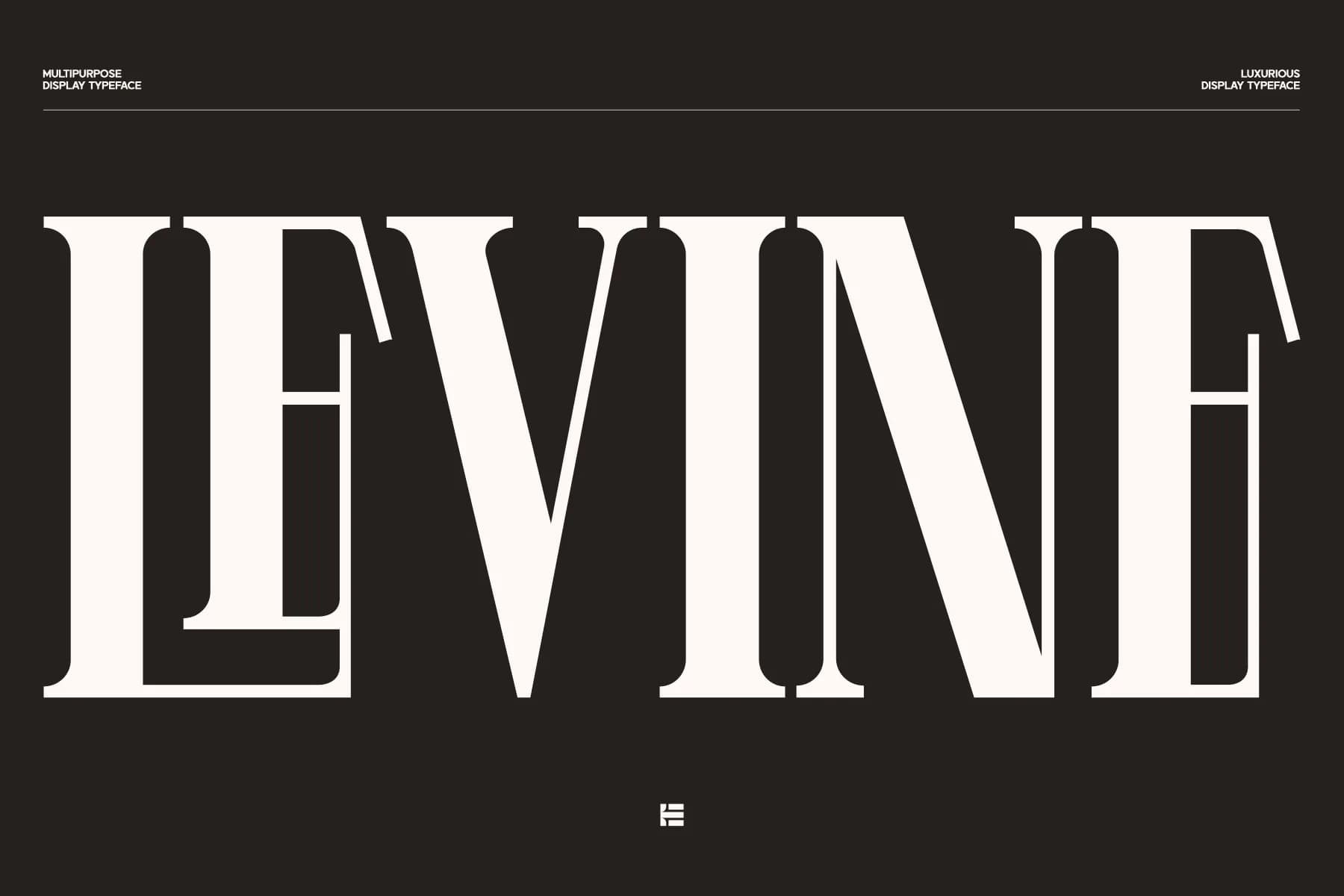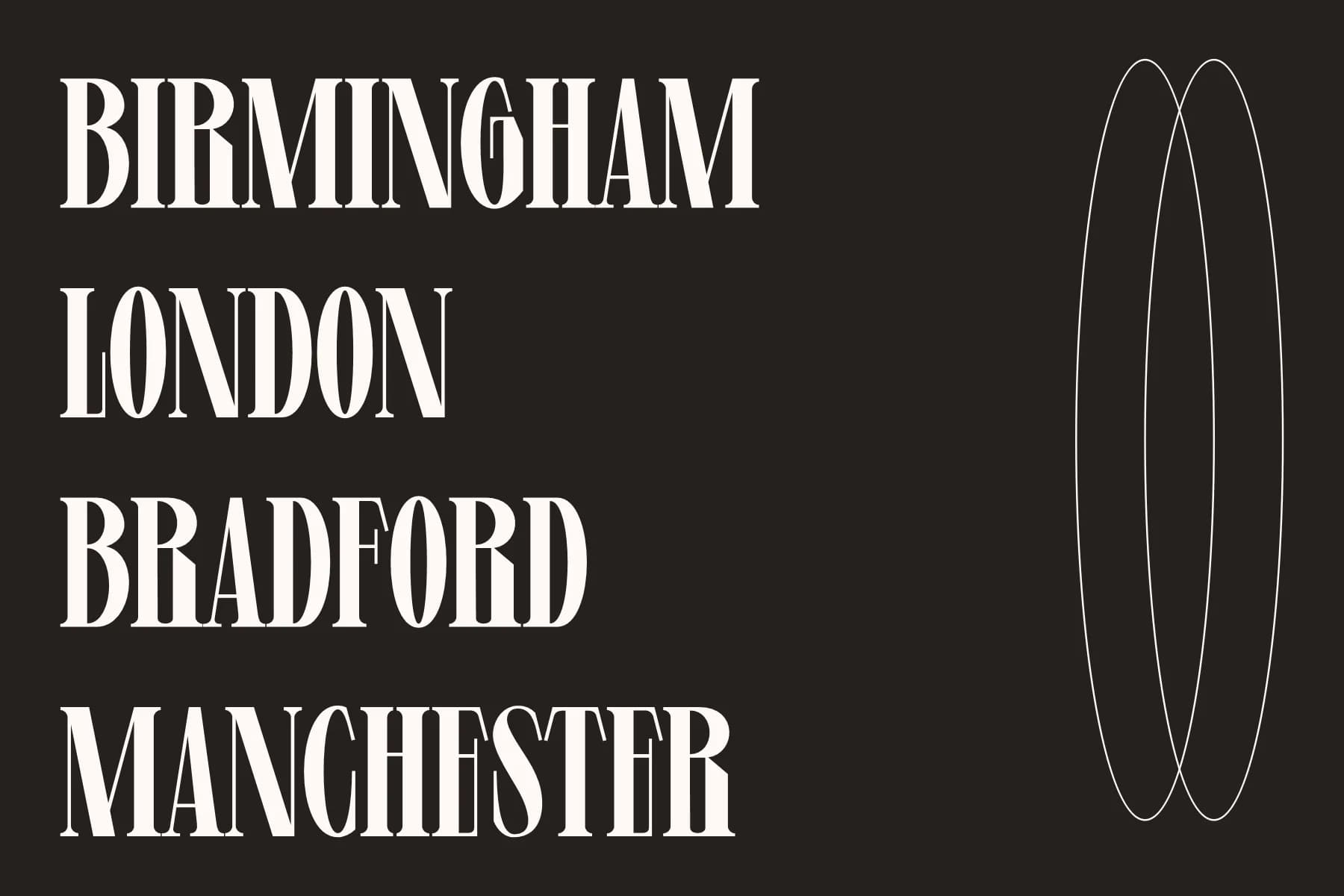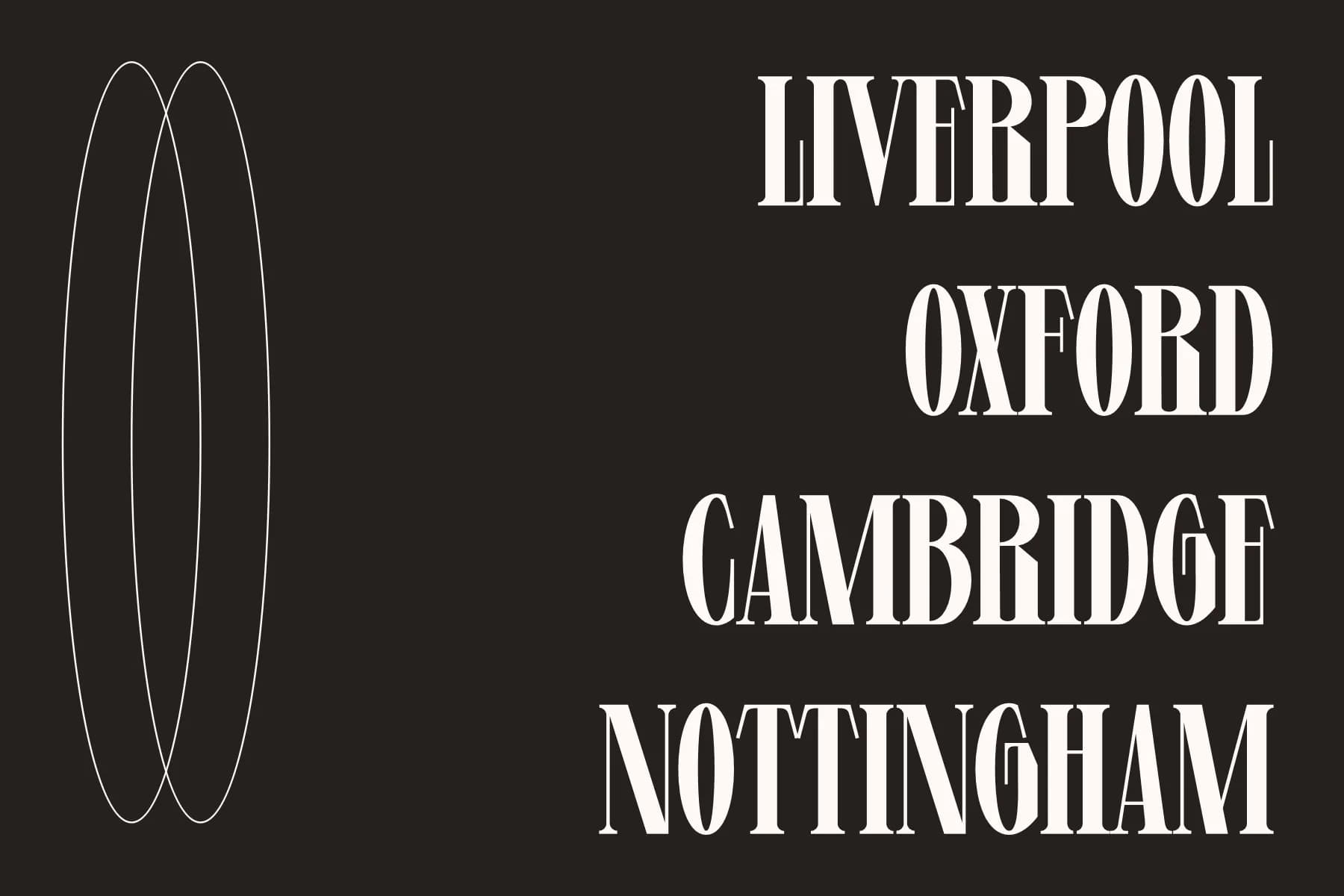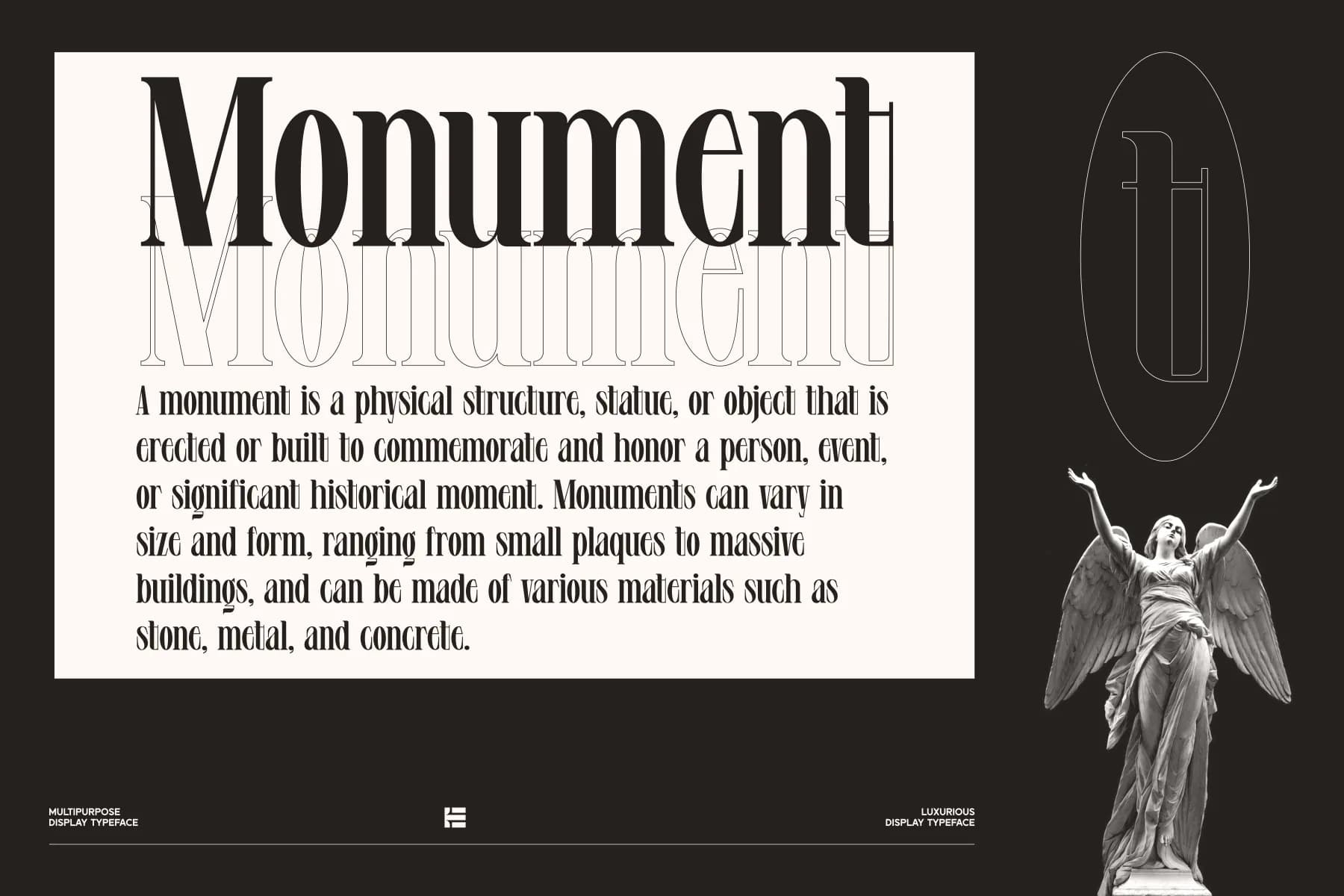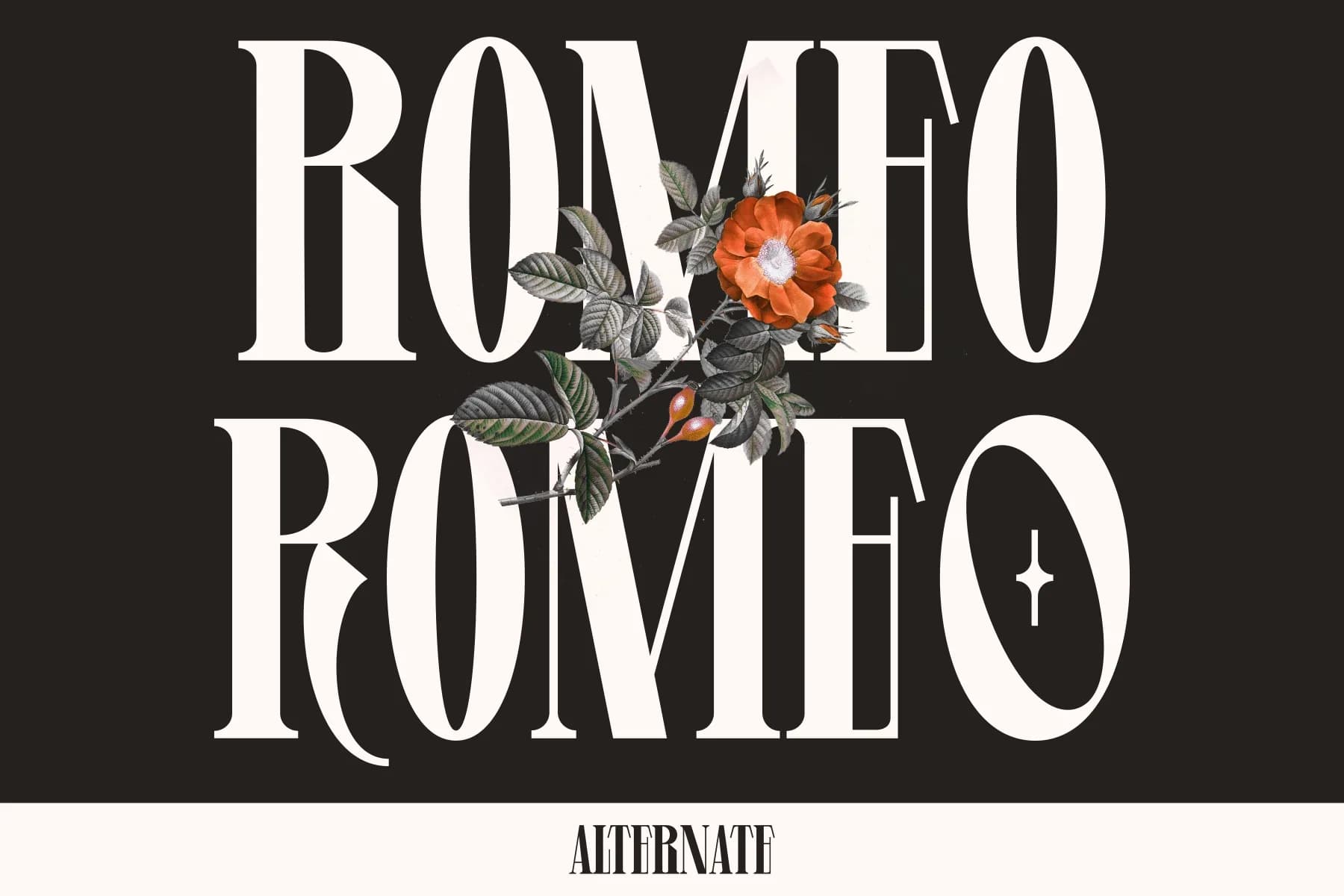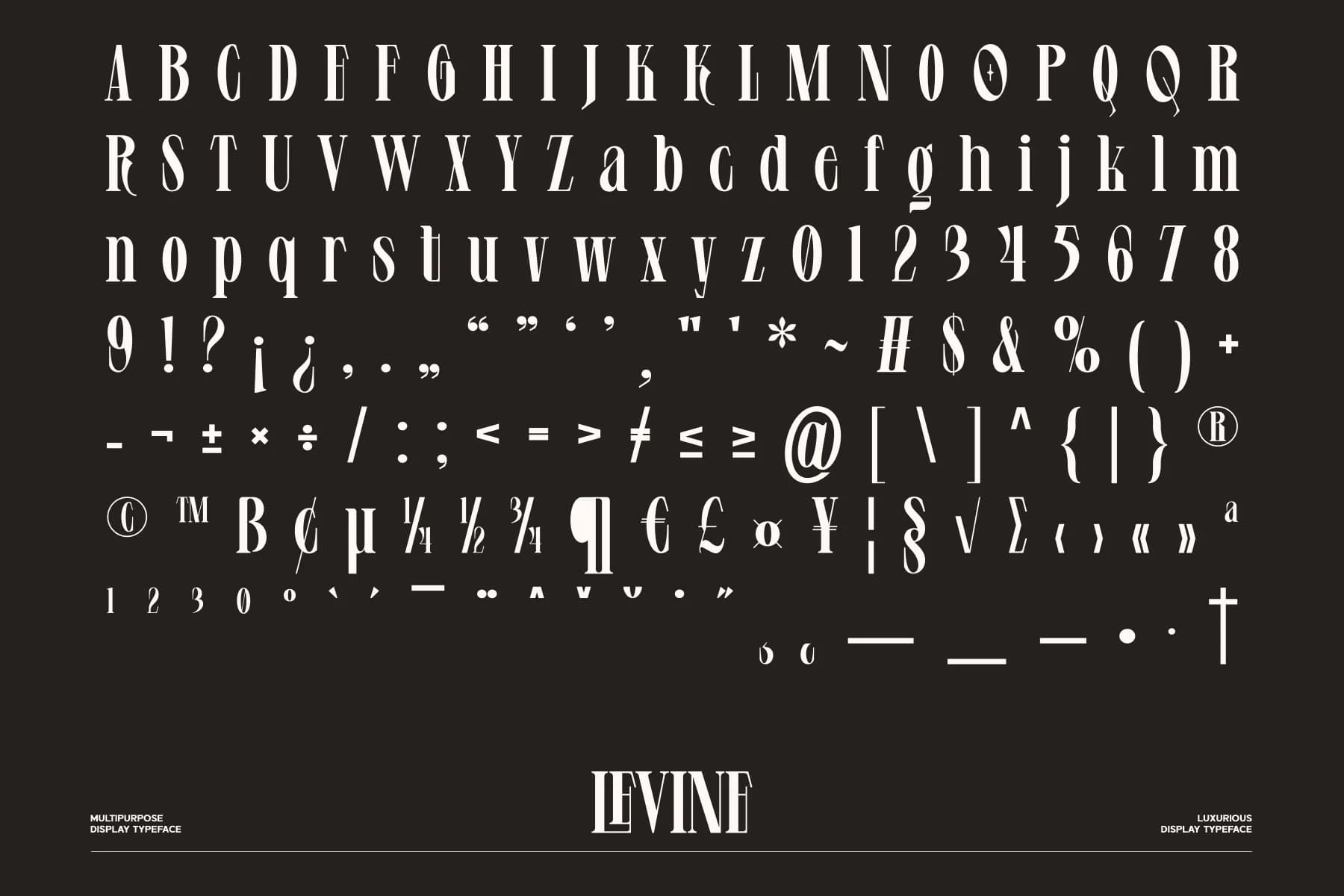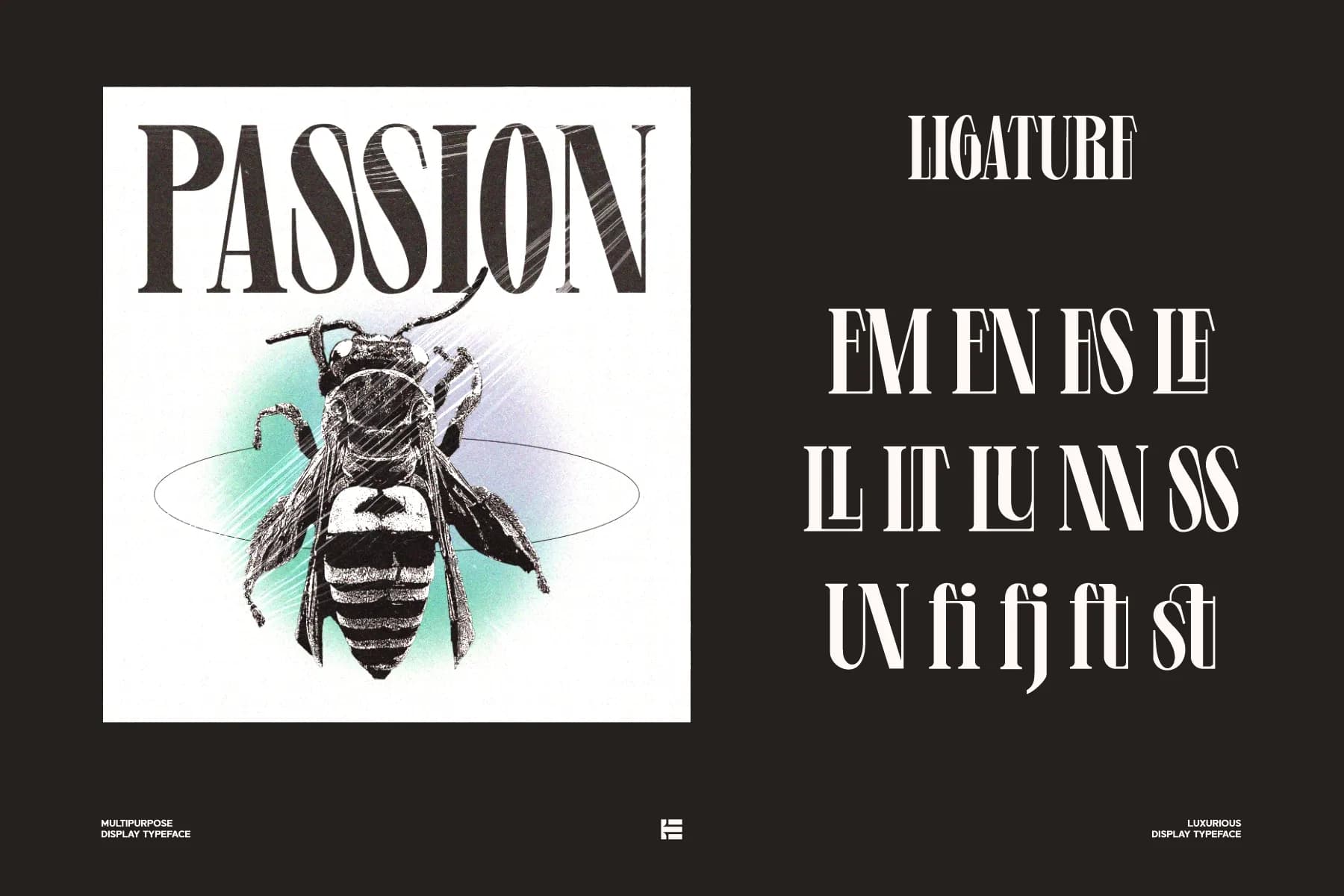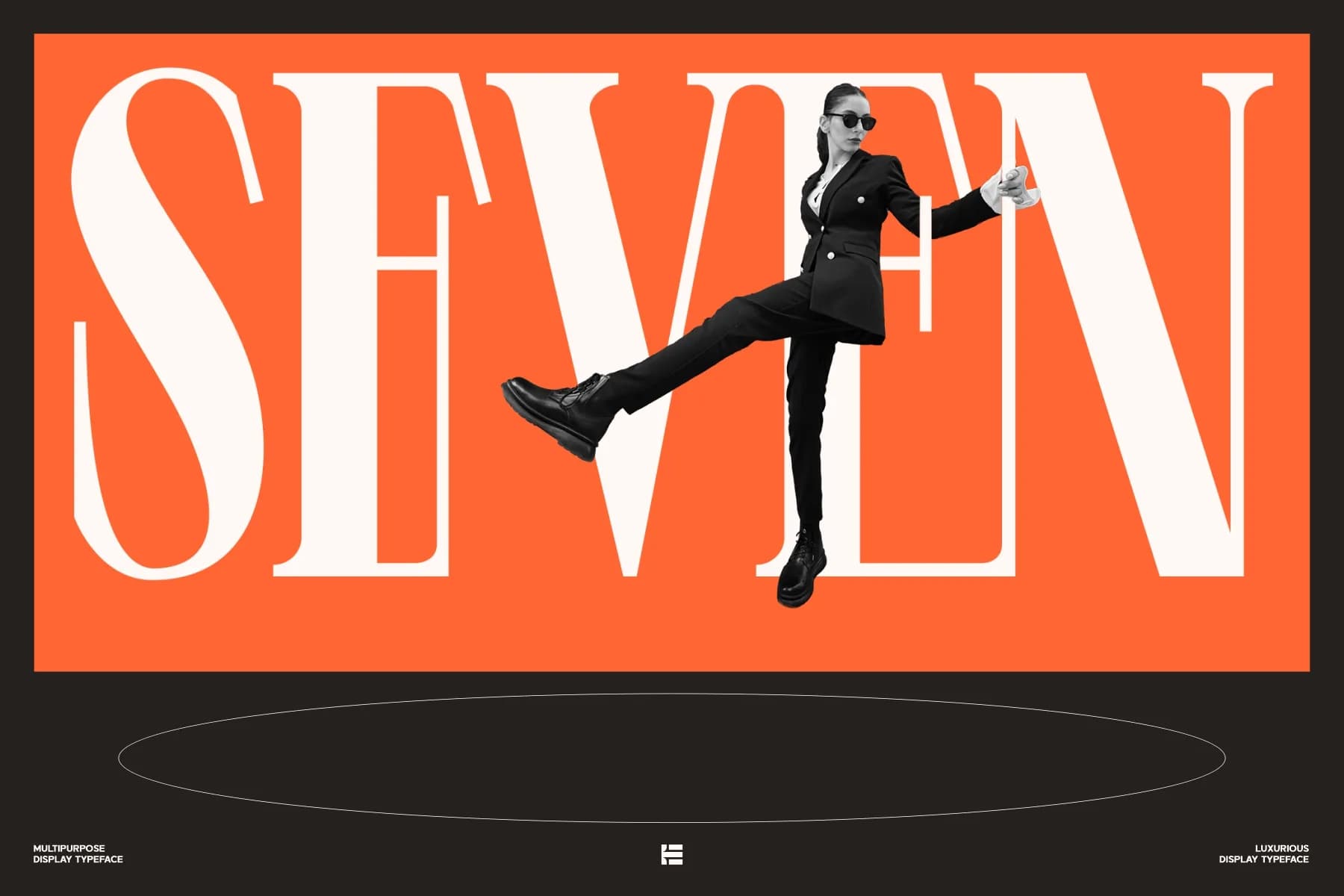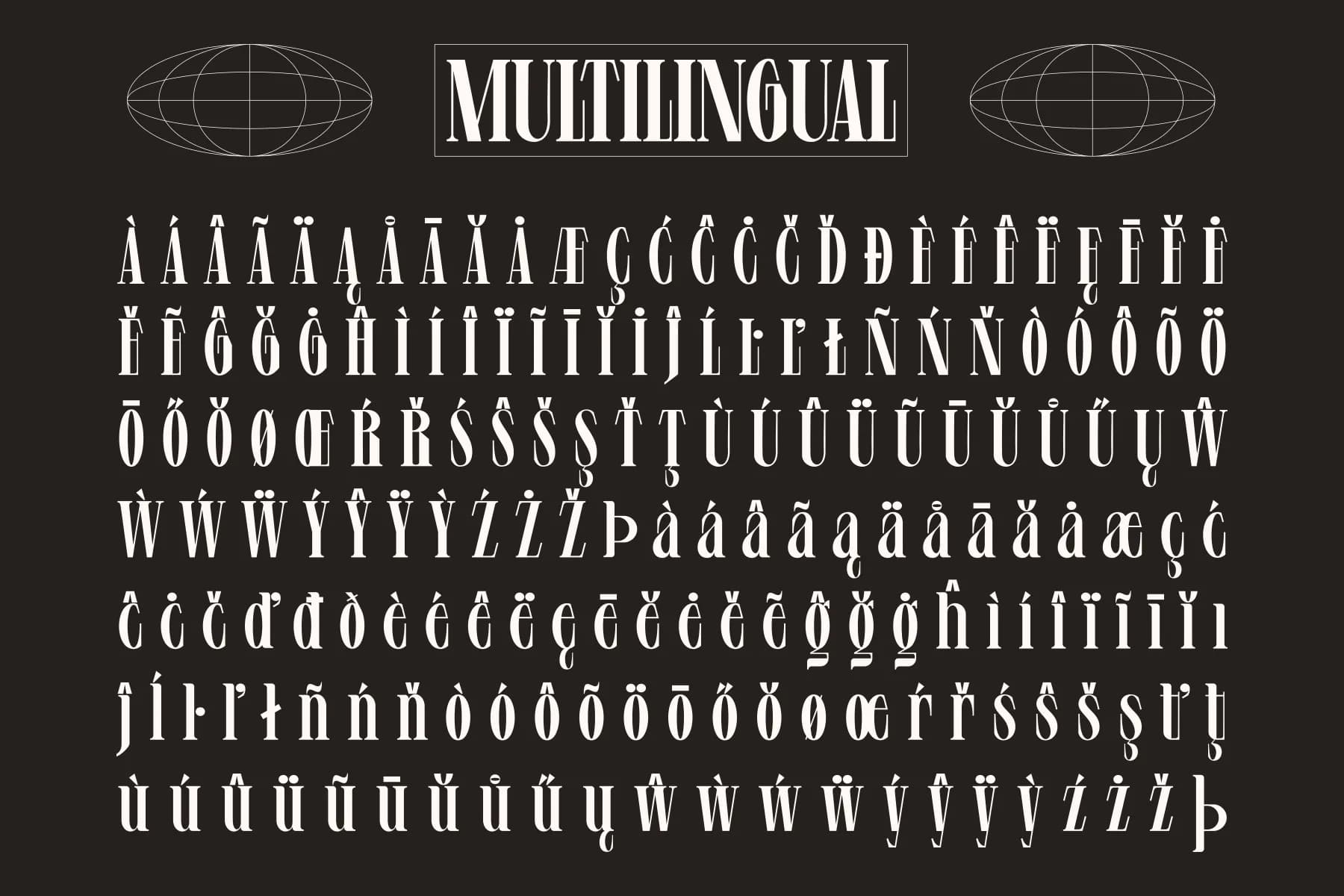
Levine Display Font
Levine is a new condense font that is beautiful and has a luxury look. This unique font is perfect for creating beautiful logotypes, stunning magazine designs and more. This font can be your solution in completing projects that are equipped with various alternate and ligature collections.